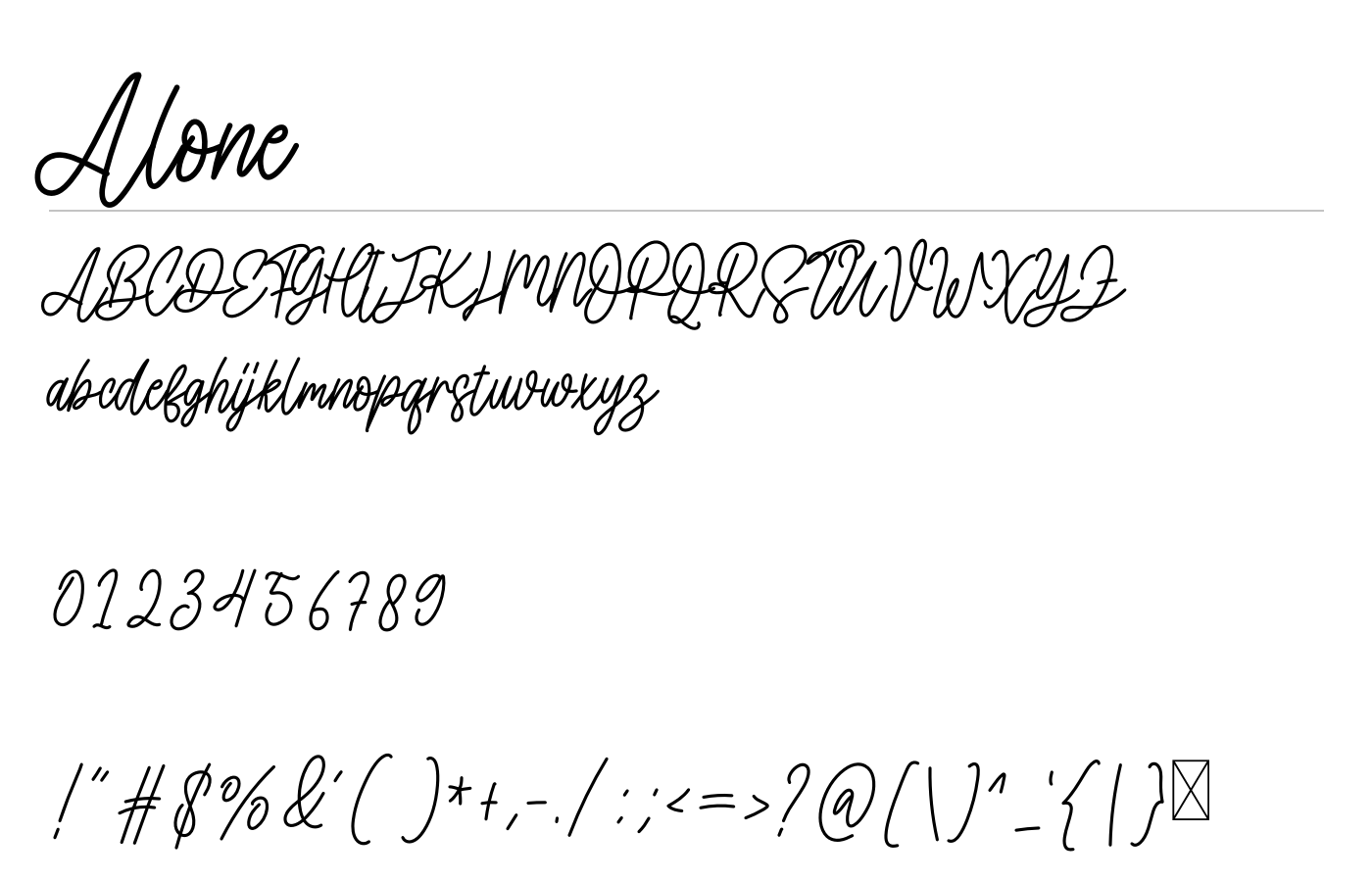
Alone Font is an elegant and delicate script typeface with a flowing, handwritten style that feels personal and refined. Its slim, lightly curved strokes and connected letterforms give it a graceful, approachable character, making it ideal for invitations, branding, and creative projects that seek a sophisticated yet friendly vibe. This font works beautifully in designs that require a touch of charm and individuality without being overly ornate.
Alone Font